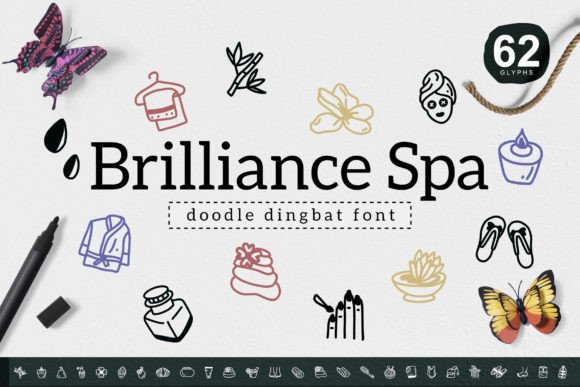
The Brilliance Spa Font: A Cute and Useful Dingbats Delight
Have you ever been in the middle of a design project, and suddenly, you just can’t find the right font to make it pop? I recall a particularly frustrating moment when I was working on a client’s wedding invitation set. The design was beautiful, but the font just wasn’t doing it justice. That’s when I stumbled upon the Brilliance Spa font, and let me tell you, it was a game-changer! ✨
So, what makes the Brilliance Spa font so special? Here’s what I love about it:
• ✅ It’s incredibly versatile and can be used for a wide range of projects, from stickers and posters to t-shirts and cards.
• ✅ The font is carefully crafted with a wide variety of dingbats that are perfect for adding a touch of whimsy to your designs.
• ✅ It’s super easy to read and understand, making it perfect for both digital and print projects.
• ✨ The font has a lovely, hand-crafted feel that adds a personal touch to any design.
• ⚠️ Some of the dingbats can be a bit intricate, so they might not work well at very small sizes.
• 🤔 The font doesn’t have a huge range of weights or styles, but that’s not really what it’s about – it’s all about the charm of those dingbats!
The Brilliance Spa font was created with the intention of bringing a touch of whimsy and charm to designs. The designer wanted to create a font that would be perfect for crafty projects, DIY enthusiasts, and creative professionals alike. With its wide range of dingbats and cute, hand-crafted feel, it’s no wonder that Brilliance Spa has become a favorite among designers and crafters.